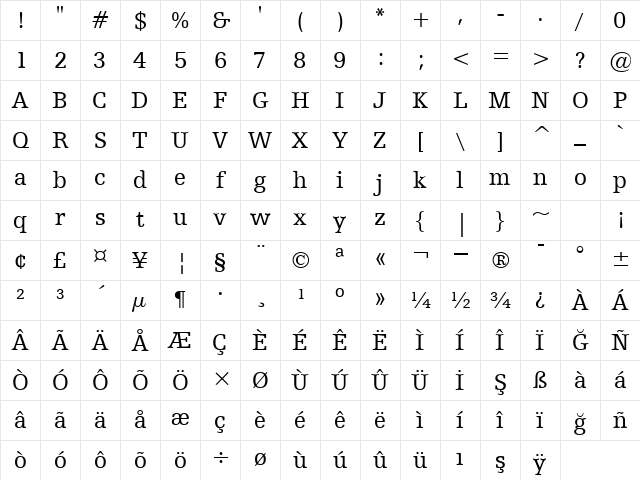
00345 Regular
Design Context for 00345
00345 is a composed and adaptable typeface that performs quietly and consistently across a wide range of design contexts.